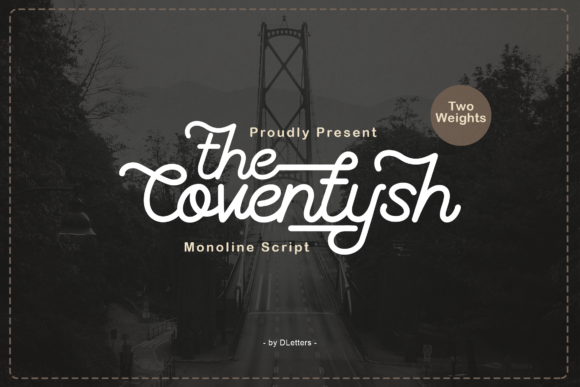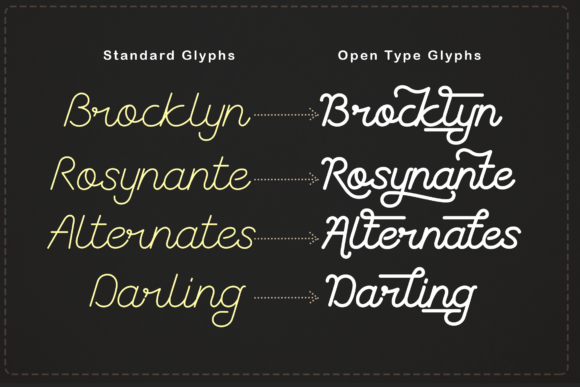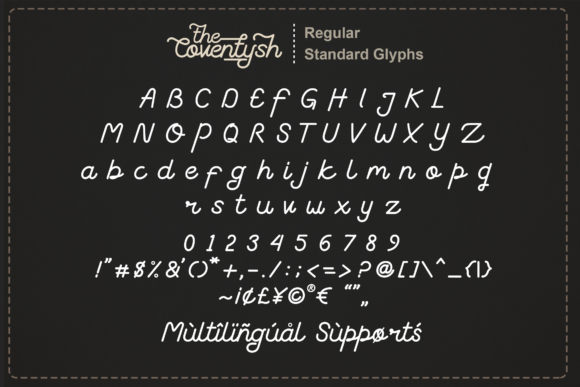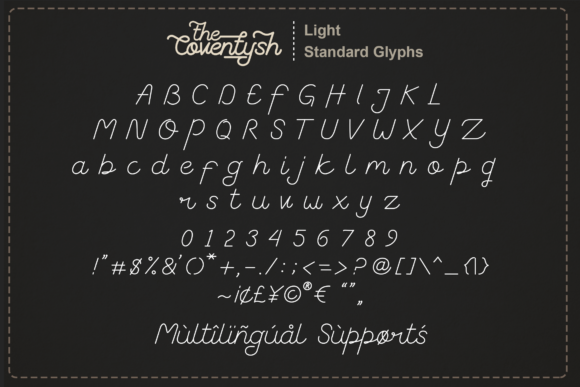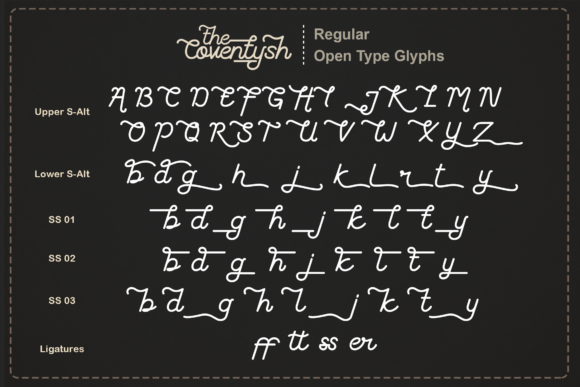
The Coventysh Font
About The Coventysh Font
The Coventysh is a beautiful and vintage styled handwritten font. It maintains its classy calligraphic influences while feeling contemporary and fresh. Fall in love with it and bring your projects to the highest levels!